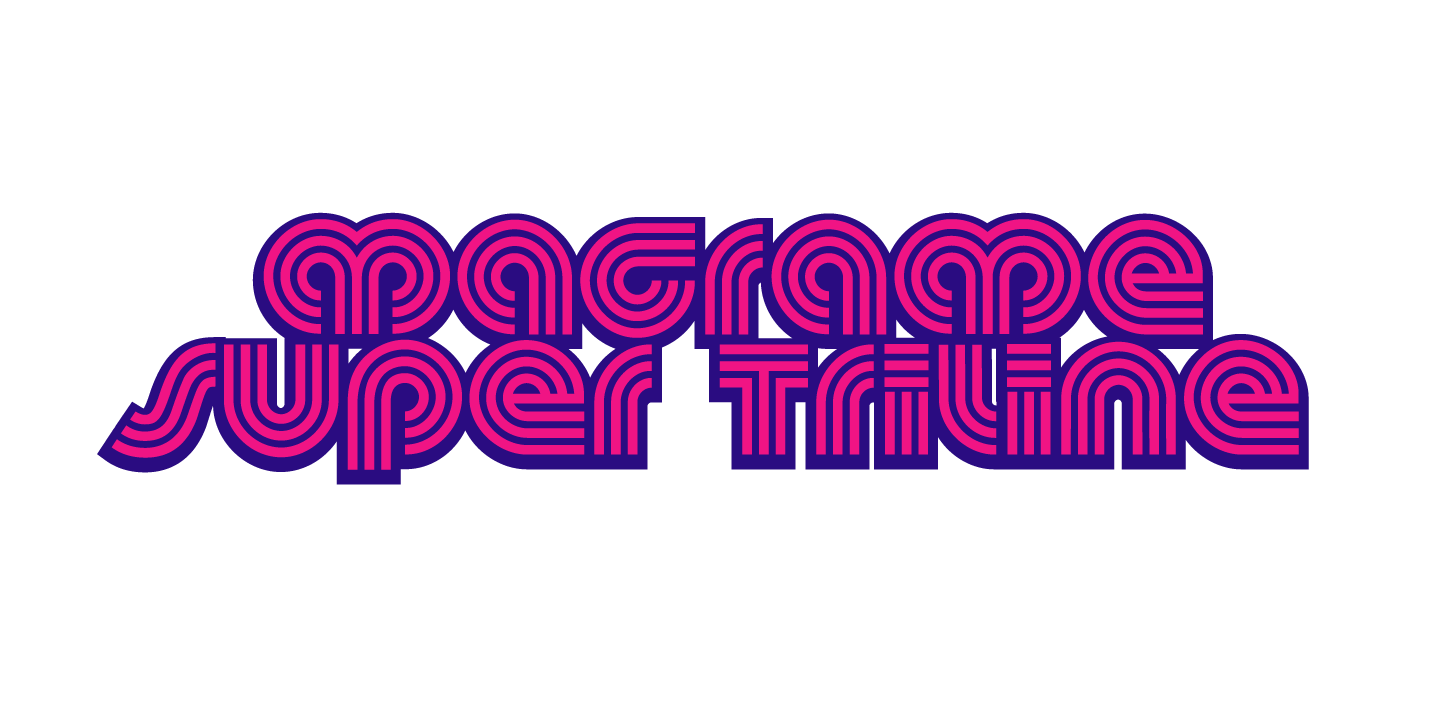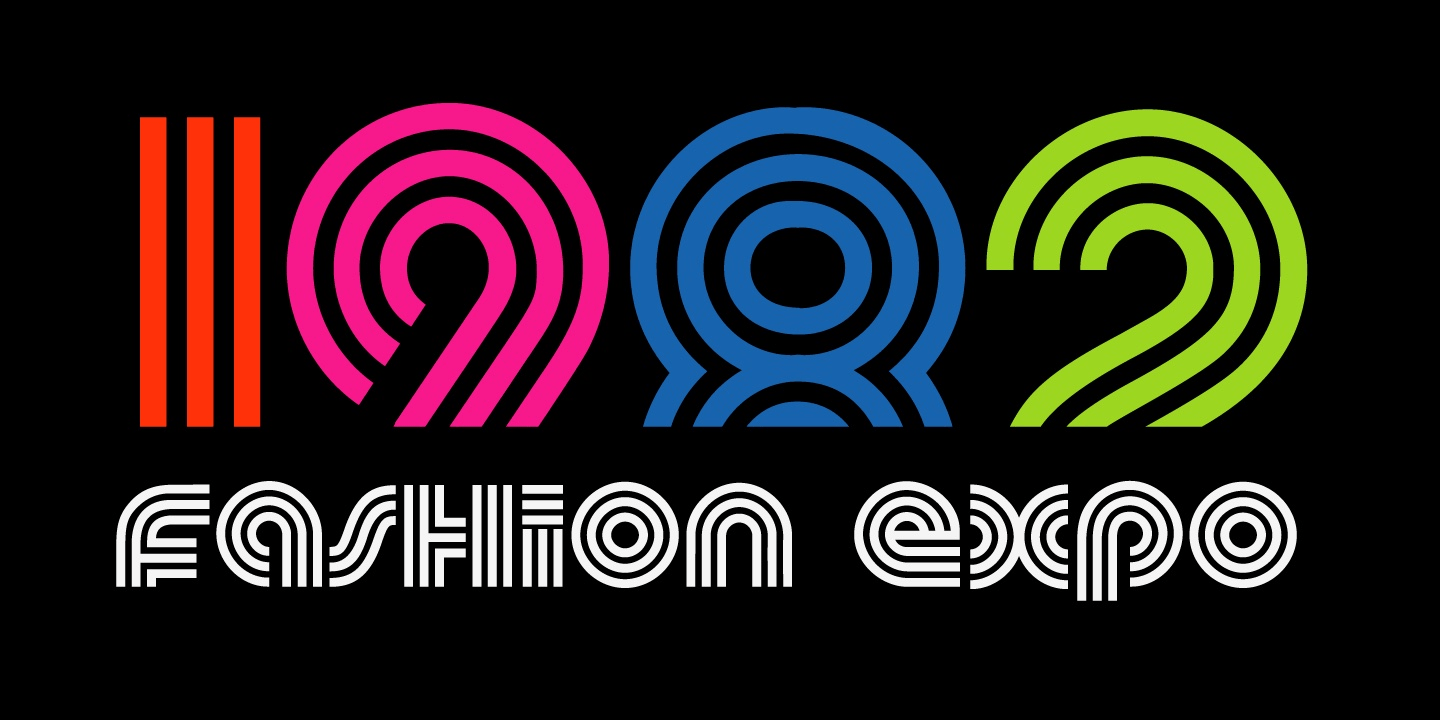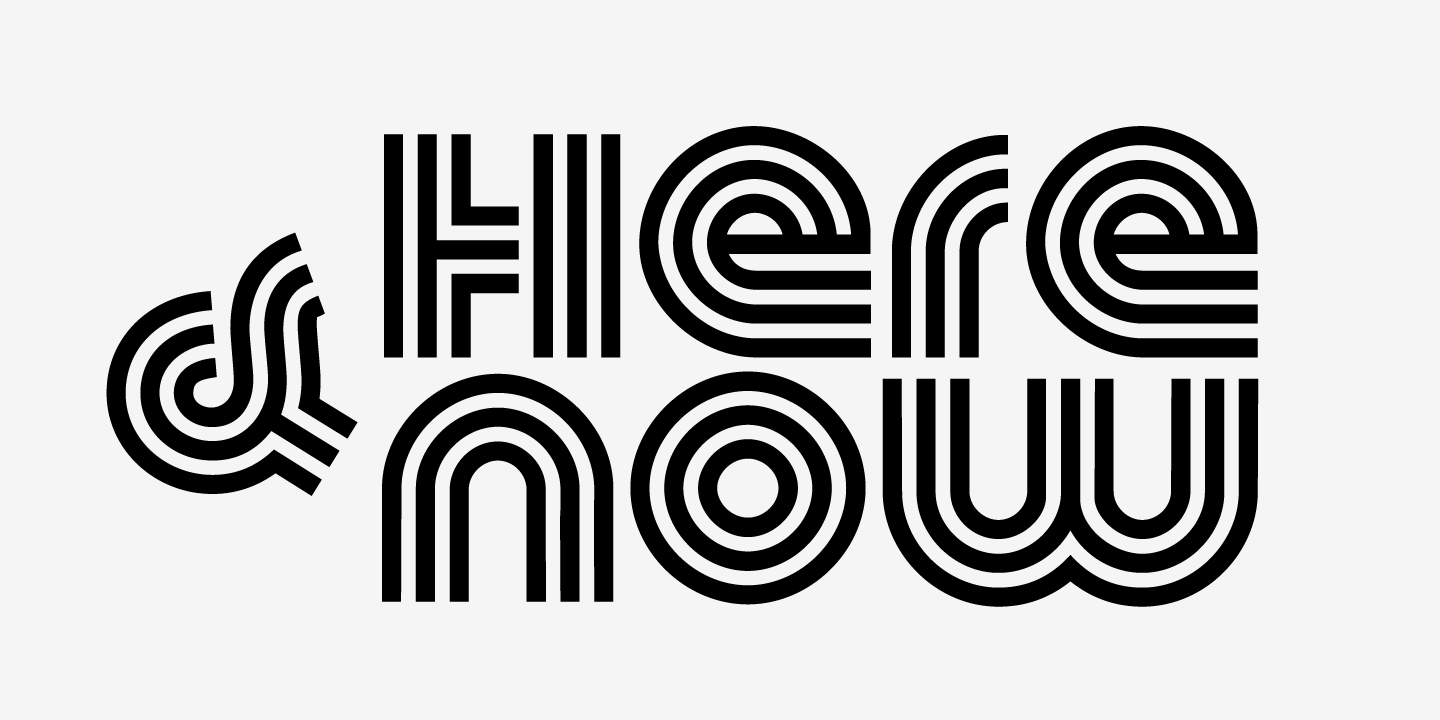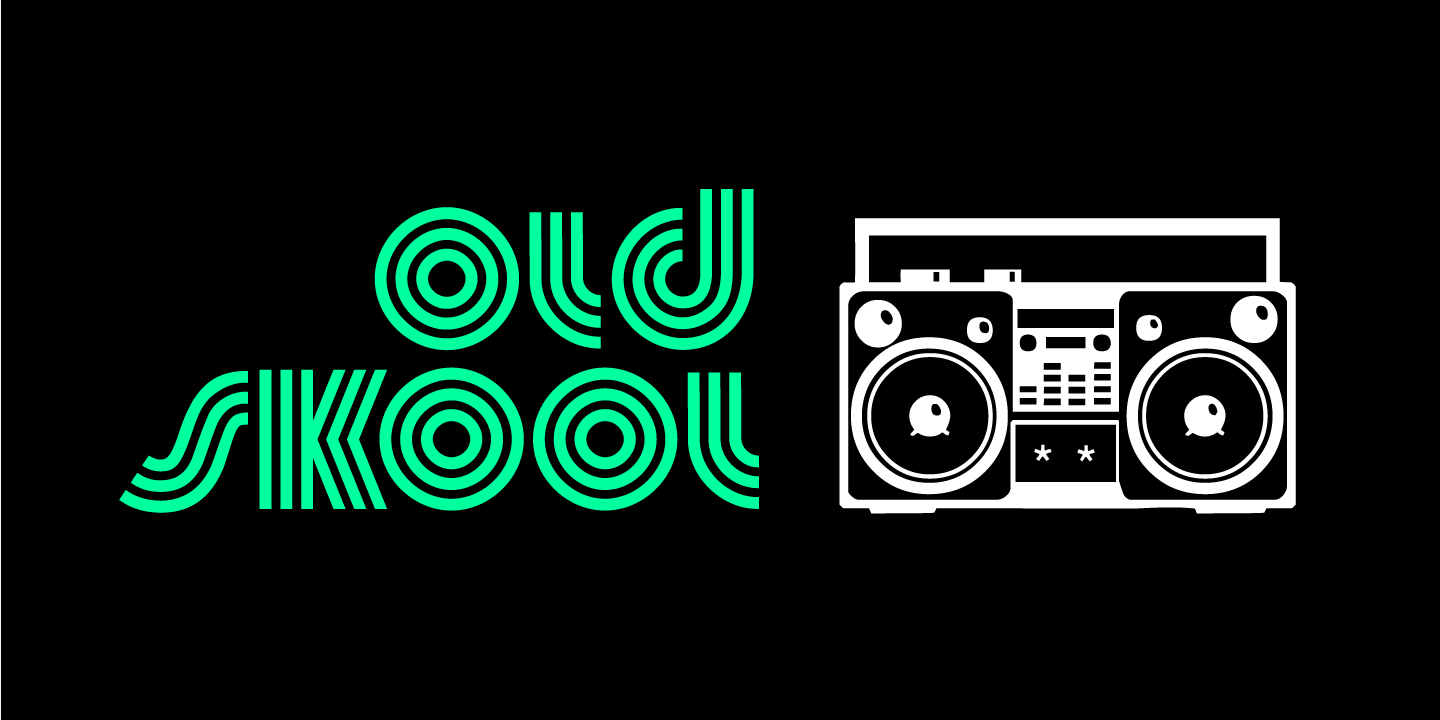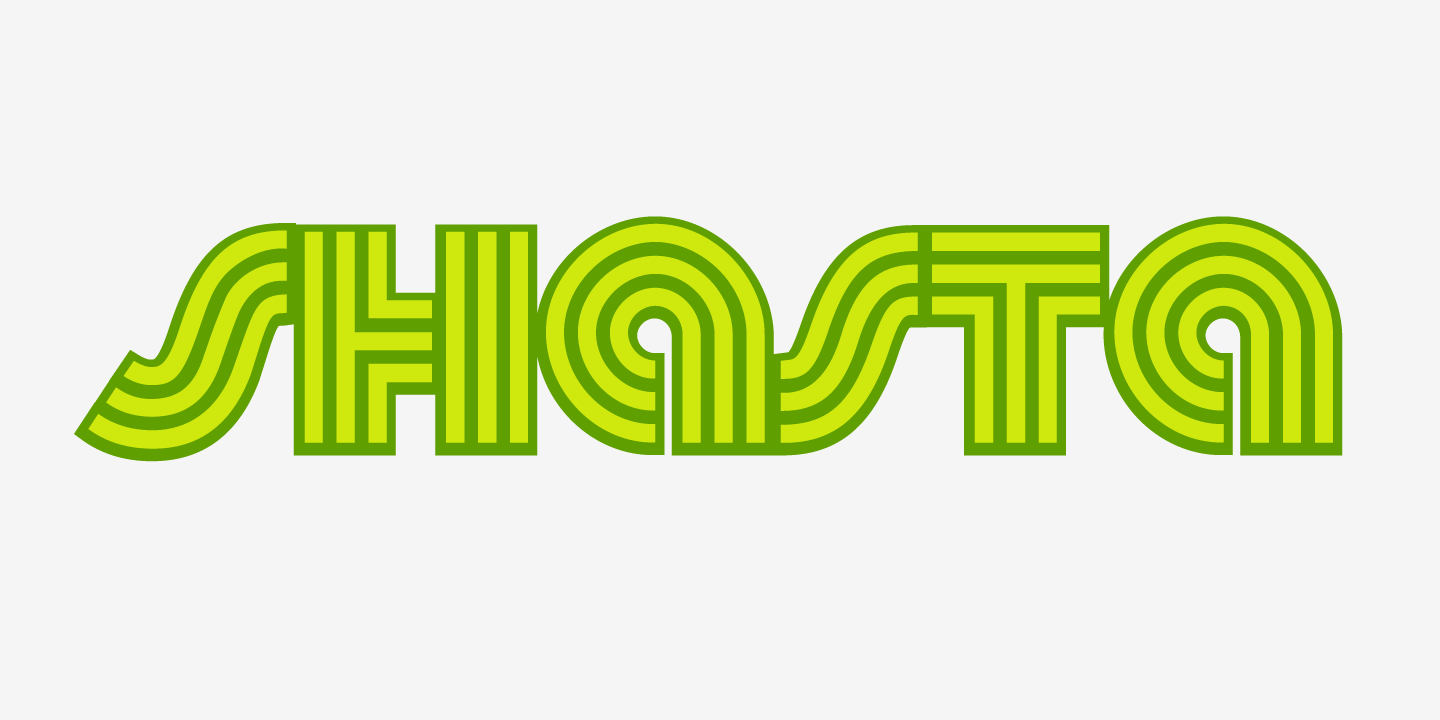
Macrame Super Triline
Font Family by Jess Latham
Macrame Super Triline is a decorative display face with a distinctly retro-futuristic feel. Its striped, multi-line construction gives lettering a bold optical texture, balancing groovy vintage energy with a crisp new wave edge. The result is eye-catching and graphic, with a look that feels equally at home in 1960s, 1970s, and 1980s-inspired work.
Designed by Jess Latham, this family includes 1 font style. It’s a strong choice for posters, logos, album-style graphics, packaging, apparel, and other display settings where you want typography to do more than just spell out words. Use it when a project calls for a futuristic accent, a special-effect look, or a standout headline with real personality.